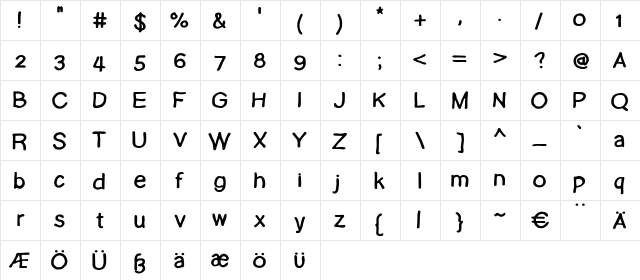
PudelsKerning Regular
Design Context for PudelsKerning Typeface
PudelsKerning offers clean, dependable letterforms without strong stylistic allegiance, making it a practical choice for designers who need flexibility.
Pro Tip: Pair PudelsKerning with a font of contrasting weight or personality to build a more expressive typographic hierarchy.